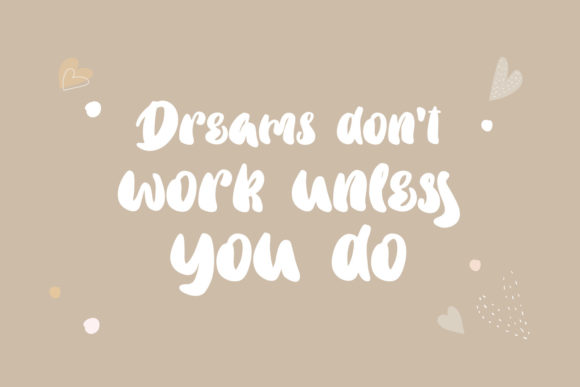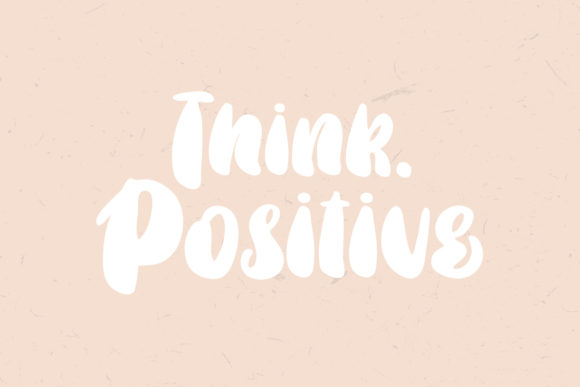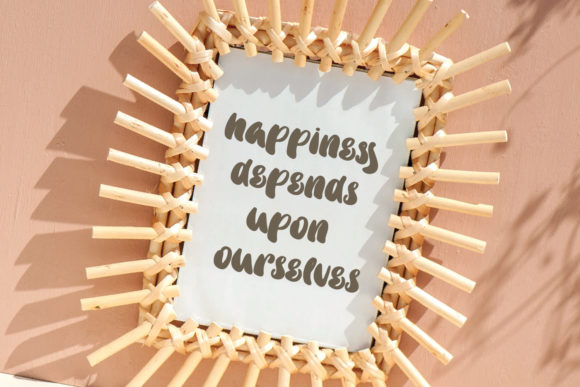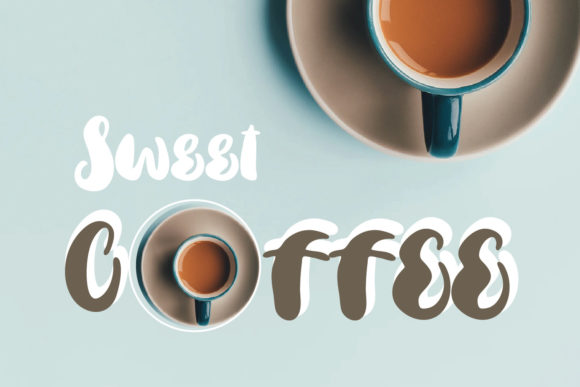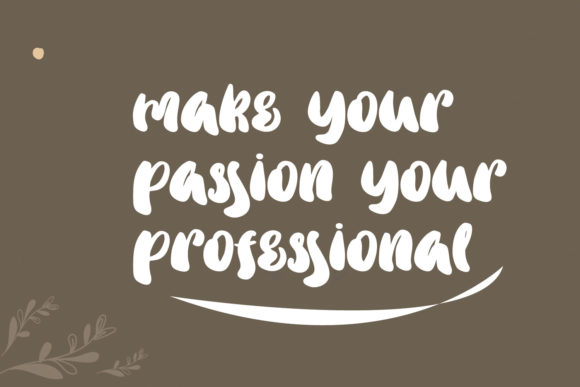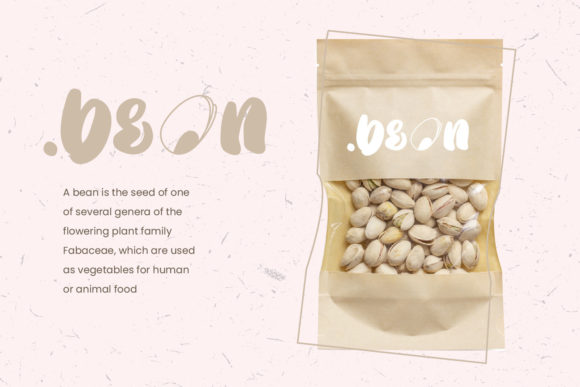
Introducing Healthy Glossy Font: Elevate Your Designs with Sophistication and Elegance
In the world of typography, a font can make or break a design. When it comes to creating a lasting impression, the right font can elevate your project from ordinary to extraordinary. If you’re a designer or crafter looking for a font that exudes sophistication and elegance, look no further than Healthy Glossy Font. This chic, refined script font is the perfect match for any project, and in this article, we’ll explore what makes it so special.
The Characteristics of Healthy Glossy Font
Healthy Glossy Font is a script font that boasts a range of stylish alternates and ligatures, making it a versatile and elegant choice for designers. Its refined lines and curves create a sense of luxury and sophistication, perfect for projects that require a touch of glamour. Whether you’re working on a branding project, a wedding invitation, or a packaging design, Healthy Glossy Font is sure to impress.
What Sets Healthy Glossy Font Apart
So, what makes Healthy Glossy Font stand out from the crowd? Here are just a few of its key features:
- Stylish Alternates: Healthy Glossy Font comes with a range of stylish alternates, allowing you to mix and match letters to create a unique look that’s all your own.
- Ligatures: The font also features a range of ligatures, which help to create a seamless, connected look that’s perfect for script fonts.
- Elegant Lines: The refined lines and curves of Healthy Glossy Font create a sense of elegance and sophistication, making it perfect for high-end designs.
- Versatility: Whether you’re working on a digital project or a print design, Healthy Glossy Font is versatile enough to adapt to any style or format.
Healthy Glossy Font is a dream come true for designers and crafters who want to add a touch of elegance and sophistication to their projects. Whether you’re working on a:
- Branding Project: Use Healthy Glossy Font to create a luxurious and high-end brand identity that will leave a lasting impression on your customers.
- Wedding Invitation: Add a touch of romance and elegance to your wedding invitations with Healthy Glossy Font.
- Packaging Design: Use Healthy Glossy Font to create eye-catching packaging that stands out on store shelves.
Tips for Using Healthy Glossy Font
To get the most out of Healthy Glossy Font, here are a few tips to keep in mind:
- Pair it with a Sans Serif Font: Pair Healthy Glossy Font with a clean sans serif font to create a striking contrast that adds visual interest to your design.
- Experiment with Alternates: Don’t be afraid to experiment with the stylish alternates and ligatures in Healthy Glossy Font to create a unique look that’s all your own.
- Use it Sparingly: Because Healthy Glossy Font is so elegant and sophisticated, it’s best to use it sparingly to avoid overwhelming your design.
| Font Name | Healthy Glossy Font |
| Author | Create Big Supply |
In conclusion, Healthy Glossy Font is a chic, refined script font that emanates sophistication and elegance. Its stylish alternates and ligatures make it the perfect match for any project, from branding and packaging to wedding invitations and more. With its versatility, elegance, and range of features, Healthy Glossy Font is sure to become a go-to font in your design arsenal.